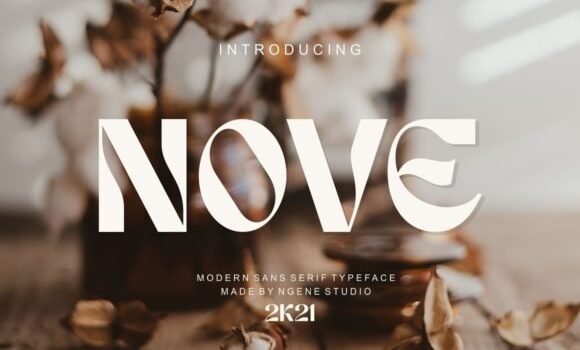
Nove Font – Free Download Introduction to Nove Font Nove is a cool and distinct display font. 📸 Preview Gallery 6 images 📌 Product Name Nove Font 👤 Author Ngene 📂 Category Explore ⬇️ Download Nove Font FREE Free Download